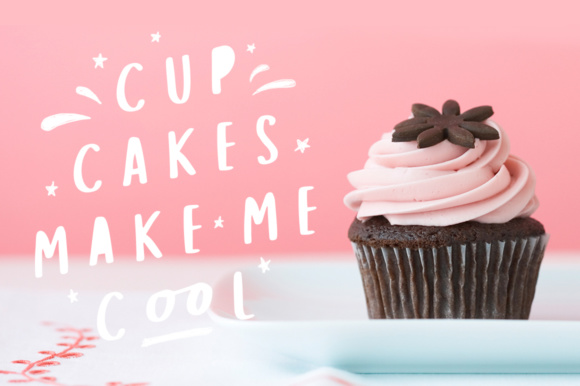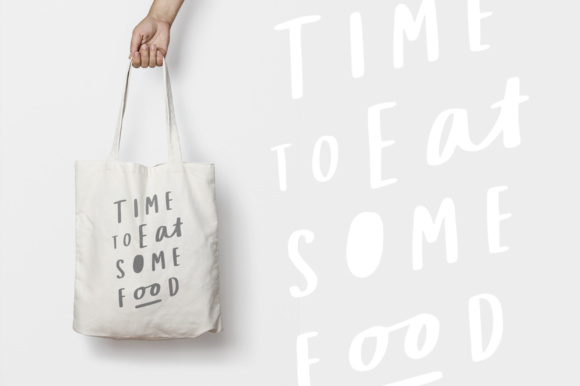
Cup Cakes is a handwritten sans serif font. Cup Cakes is very simple and fun to use! Cup Cakes is perfect for creating quotes, logos, badges, packaging, headlines, and much more!